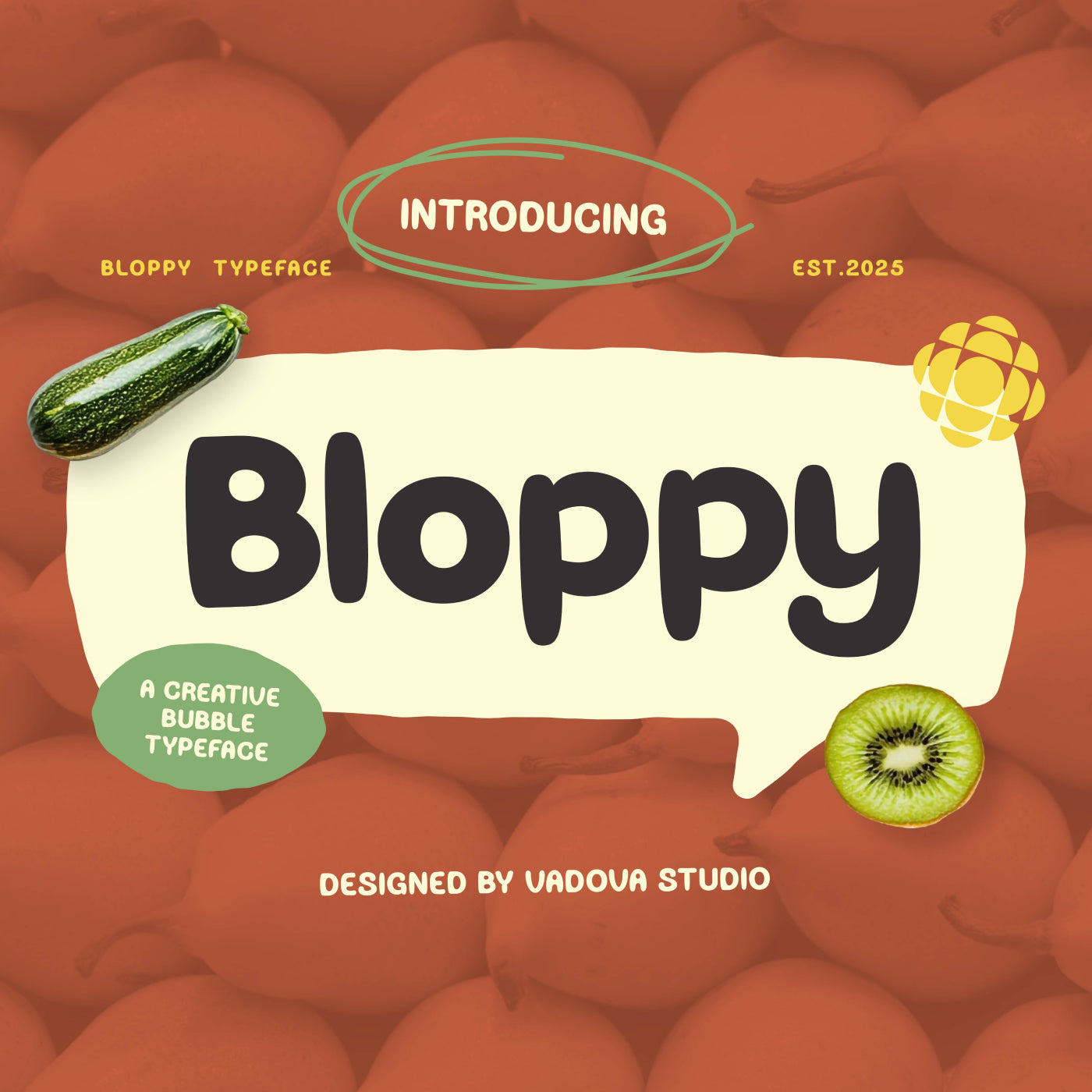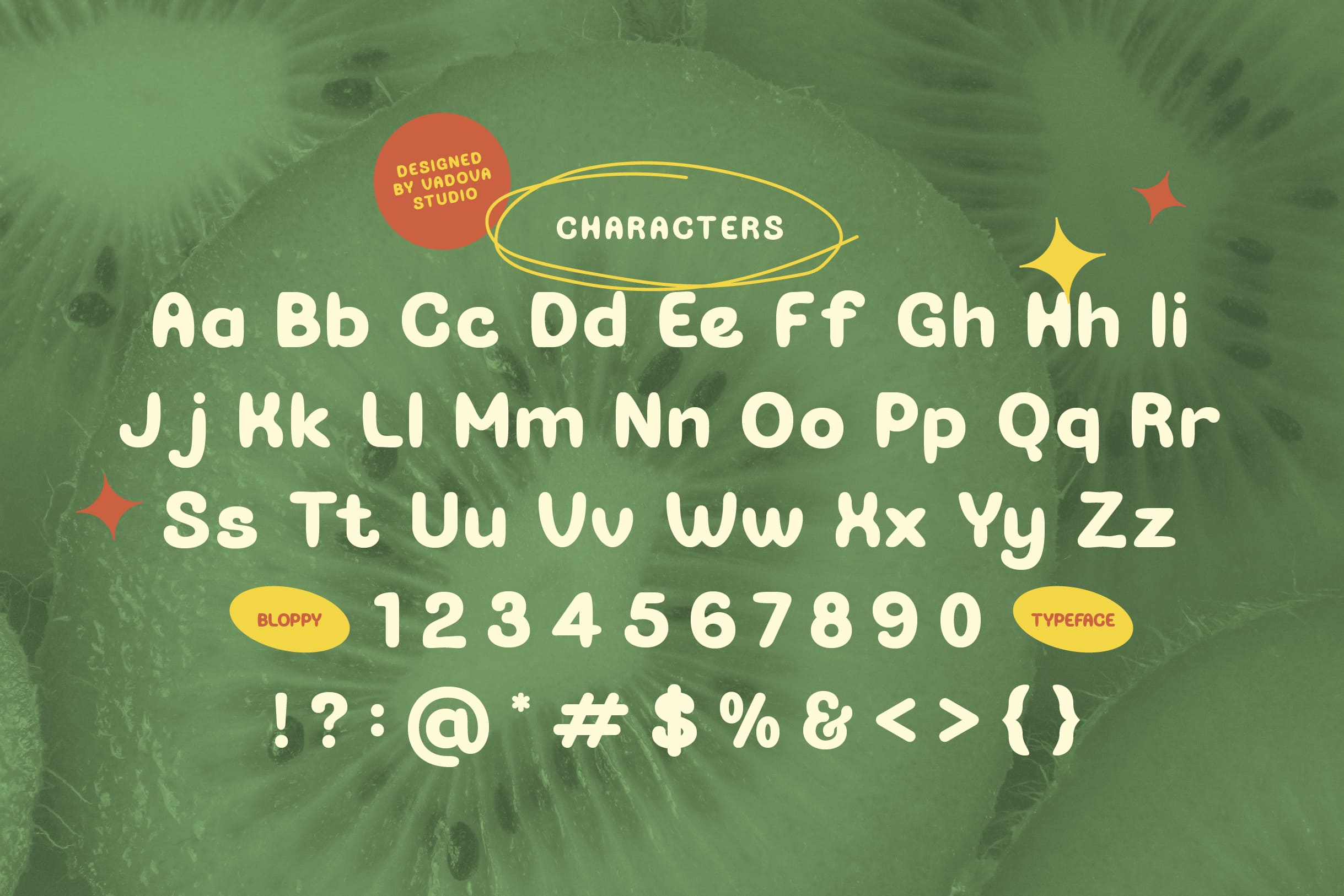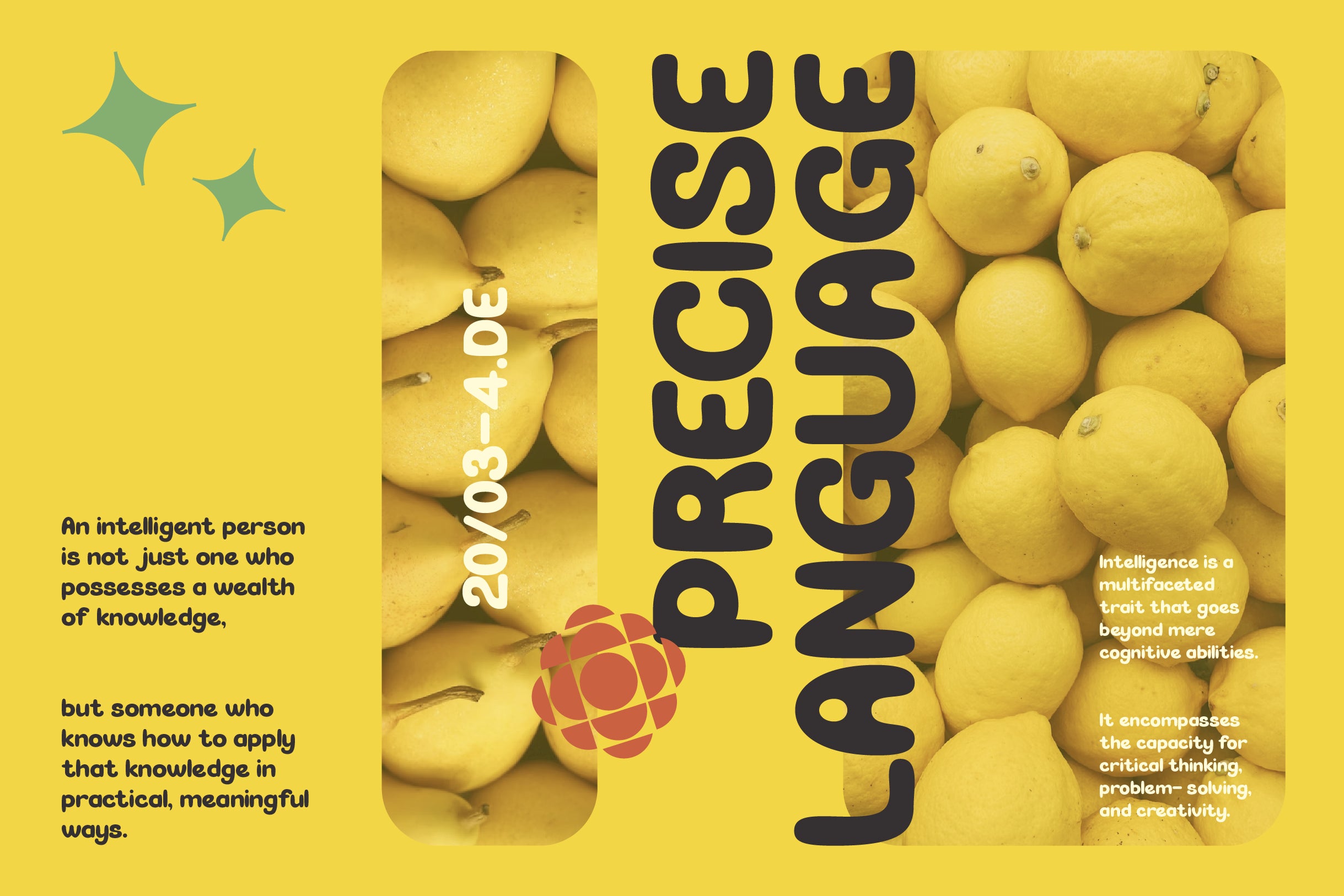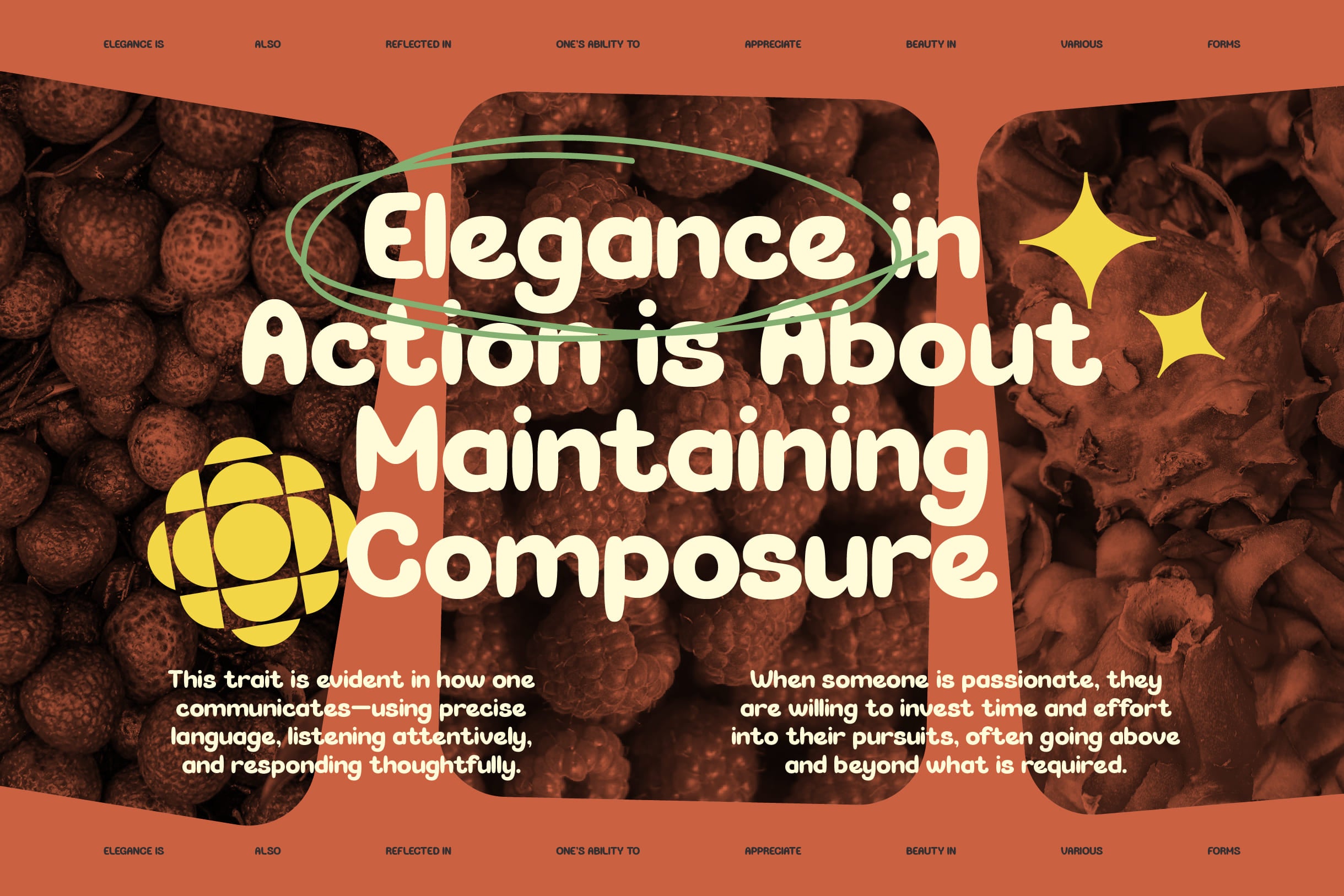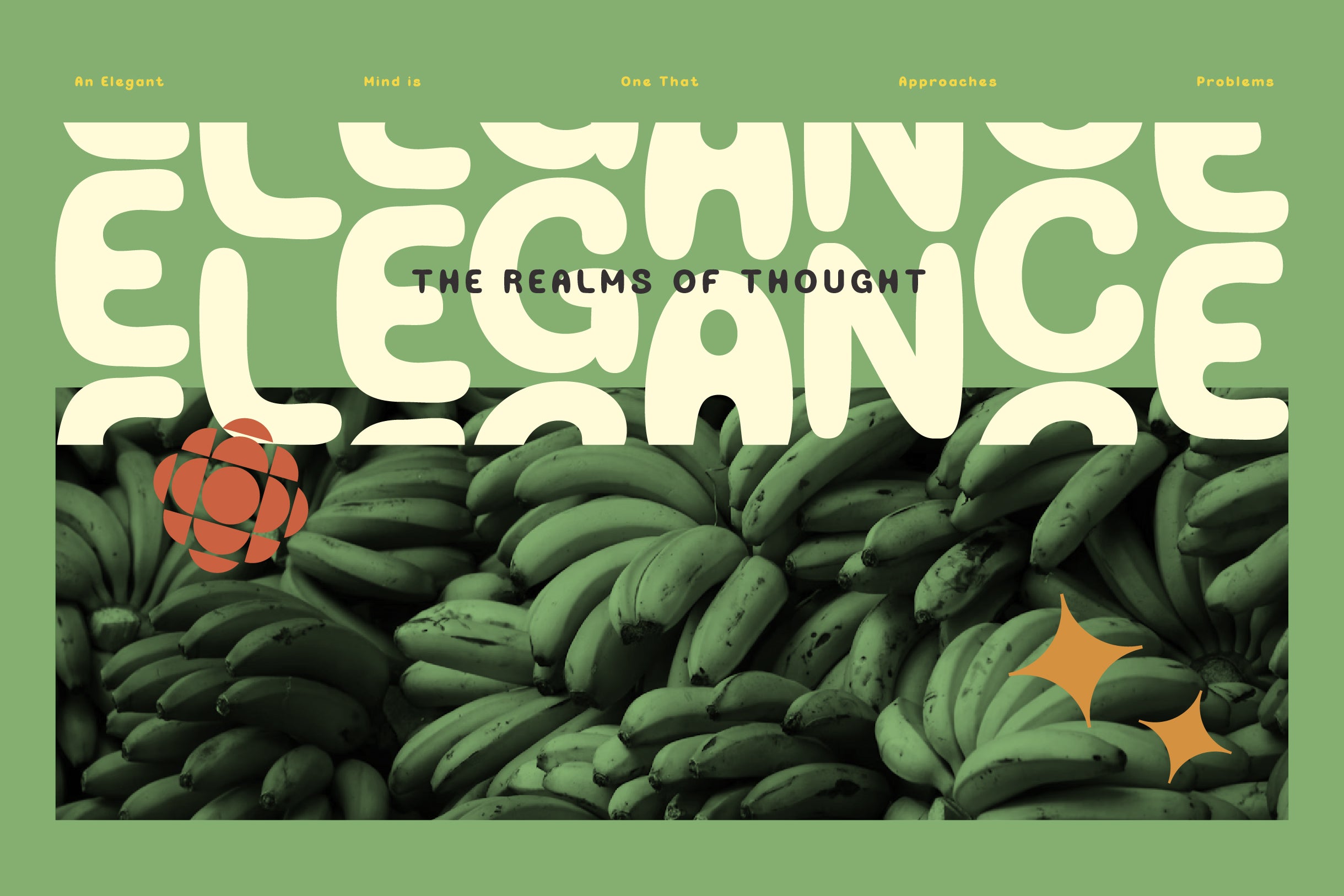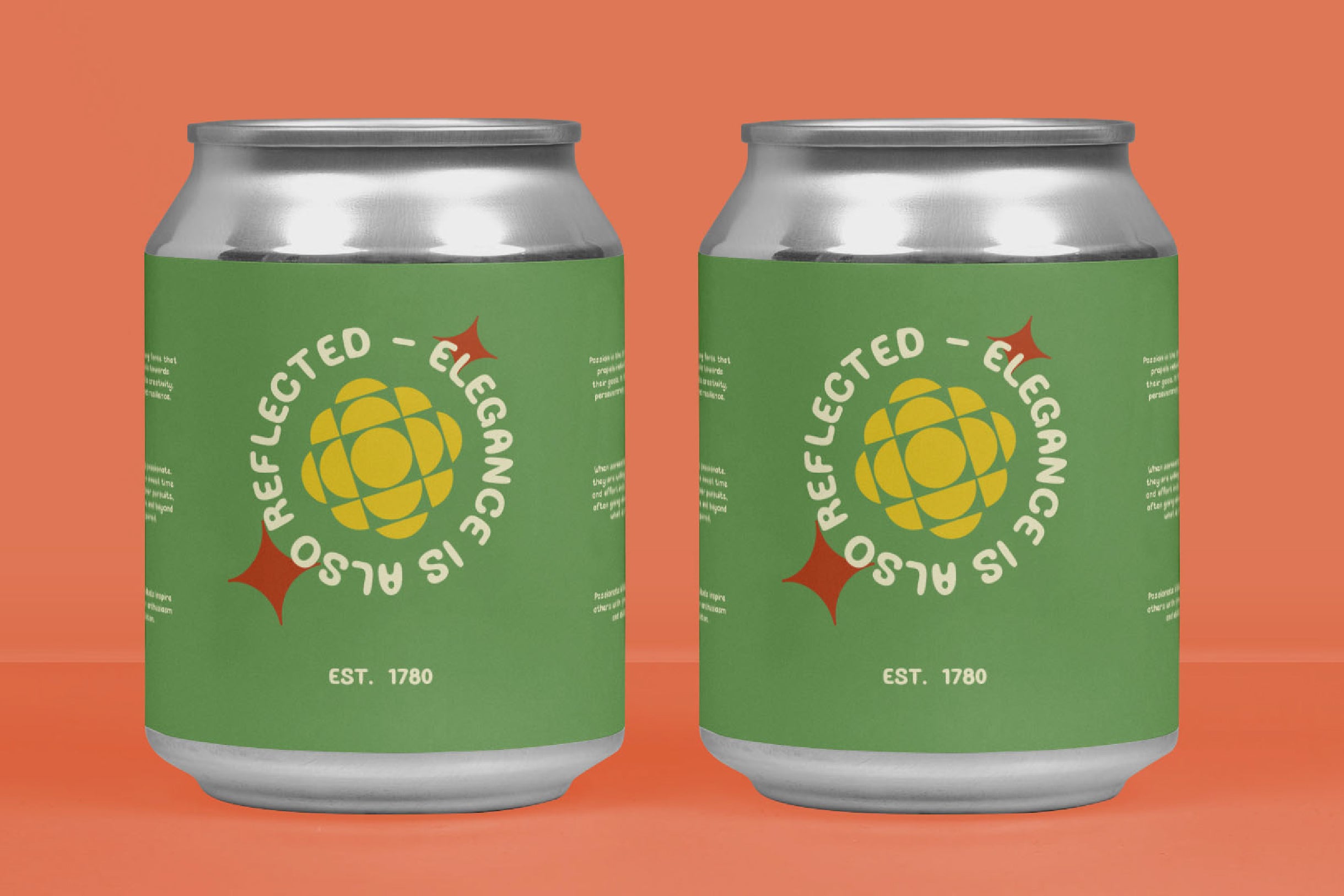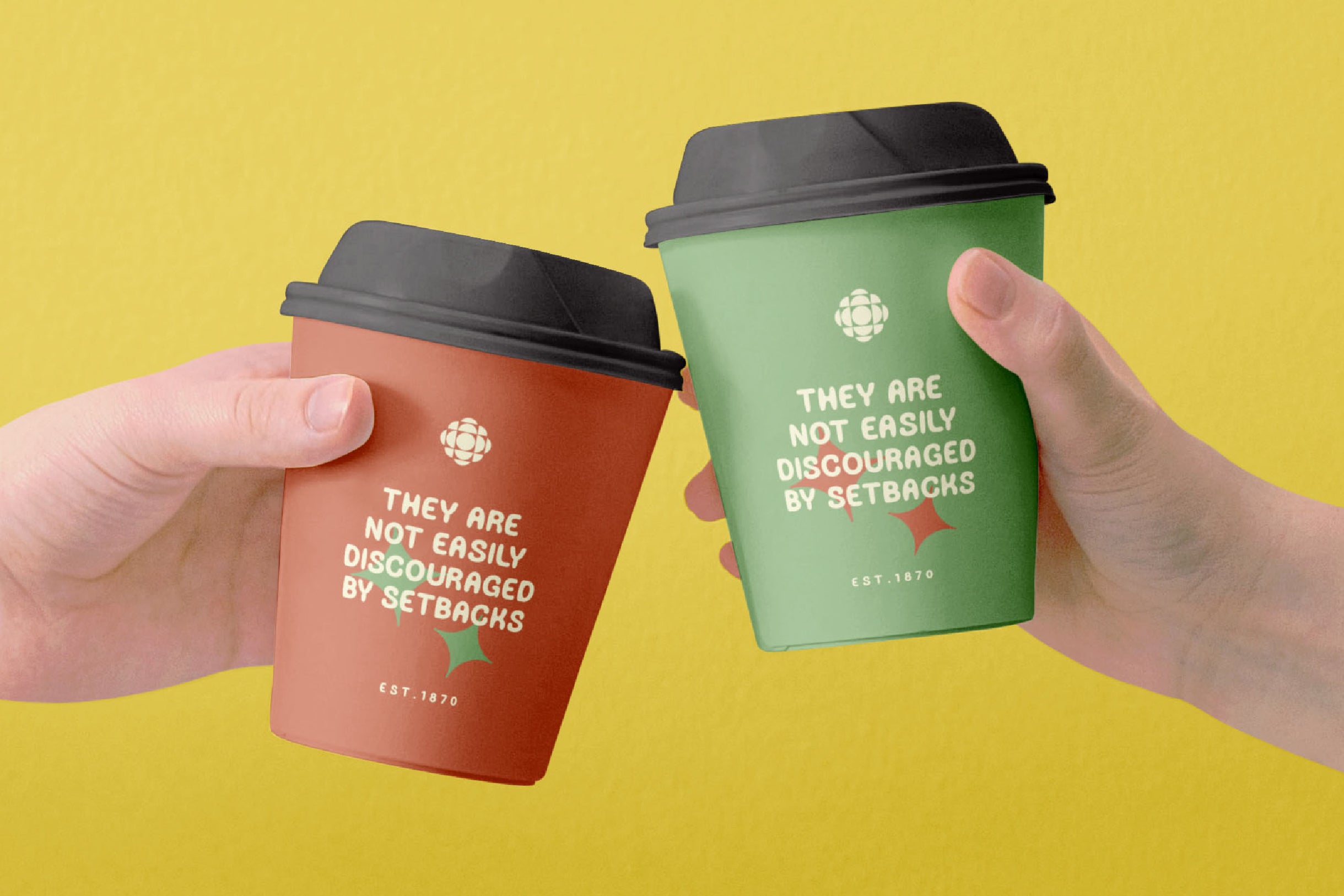
Bloppy Creative Bubble Typeface Font
Bloppy is a playful bubble typeface with rounded organic shapes that bring a friendly and cheerful personality to any design. Its soft curves, chunky strokes, and handwritten feel make it suitable for projects that need a fun, youthful, and approachable look. Perfect for branding, kids products, food packaging, social media visuals, game titles, and creative merchandise. Comes with uppercase, lowercase, numerals, and punctuation for flexible usage in both display and editorial layouts.
Relevance and Use Cases is perfect for kids branding, food & snack packaging, colorful social media posts, playful poster titles, sticker design, game UI typography, fun logo design, cute merchandise, educational graphics, children’s books, DIY craft prints, eco-friendly product labels.
Bloppy is a rounded bubble typeface featuring soft curves, chunky strokes, and a handwritten style. It includes uppercase and lowercase characters, numerals, and punctuation, available in TTF, OTF, and WOFF formats.